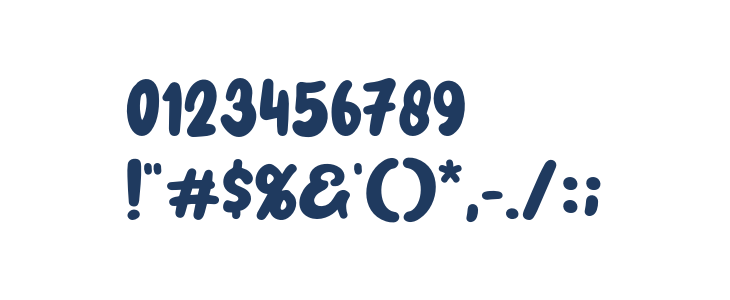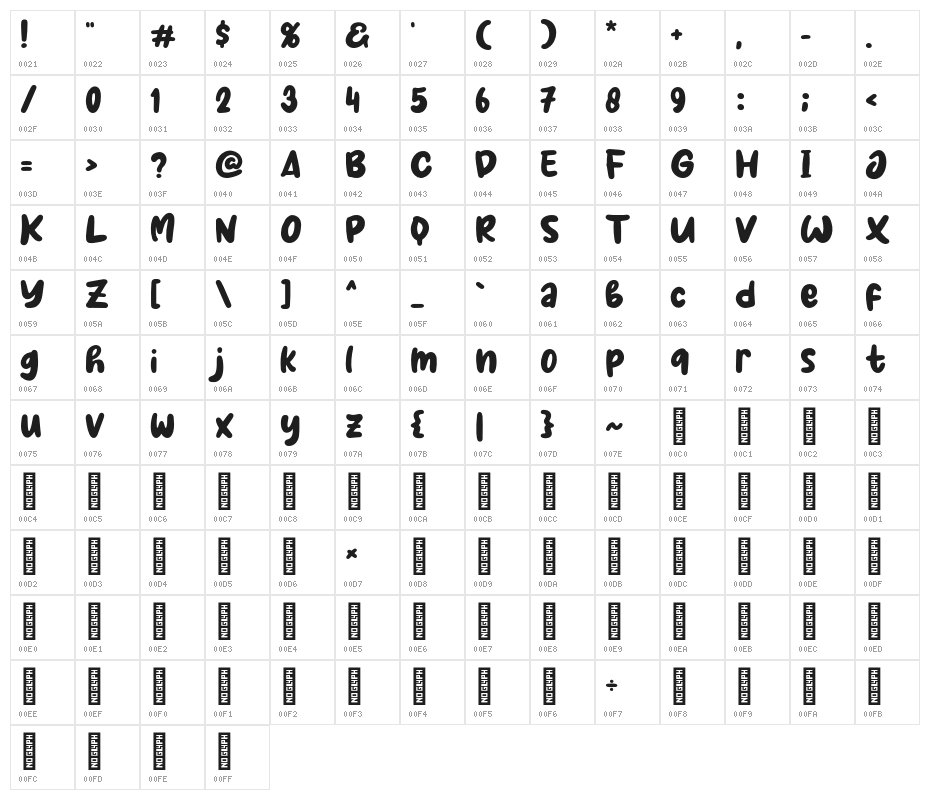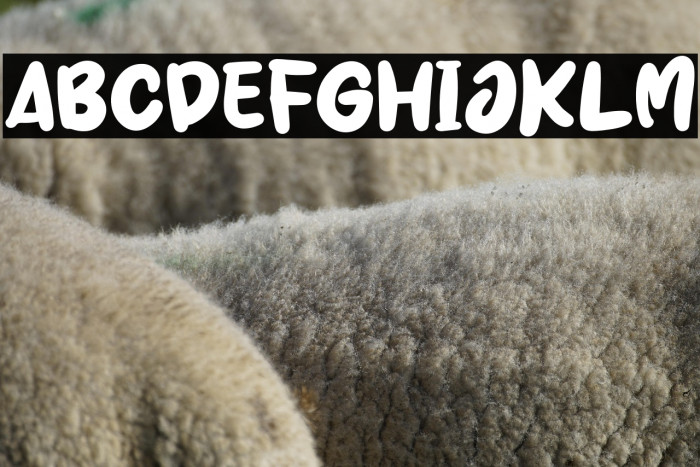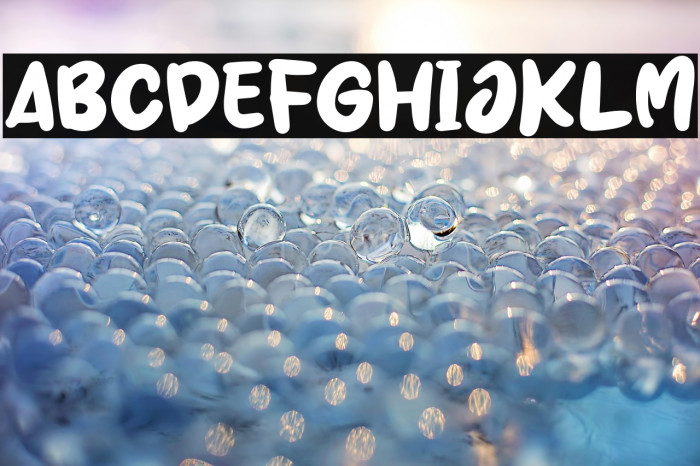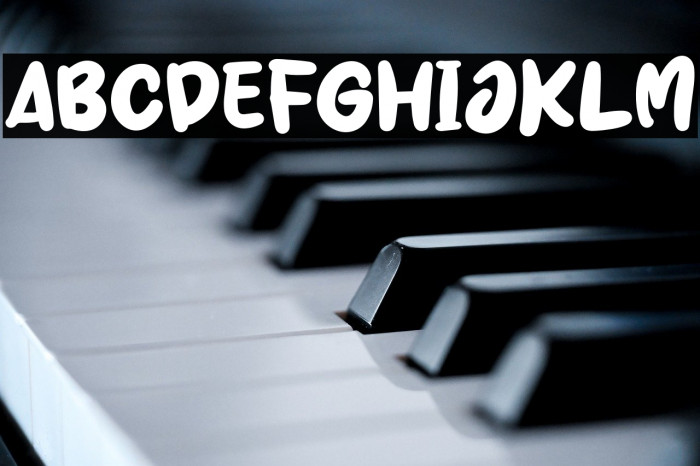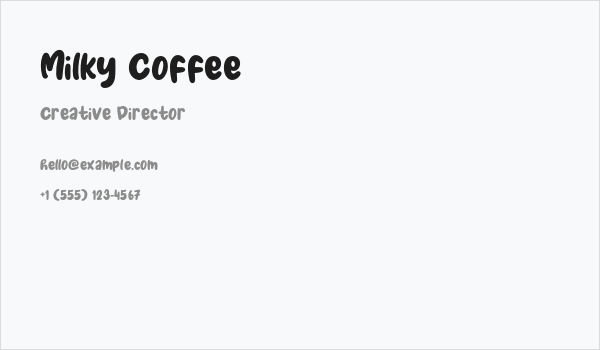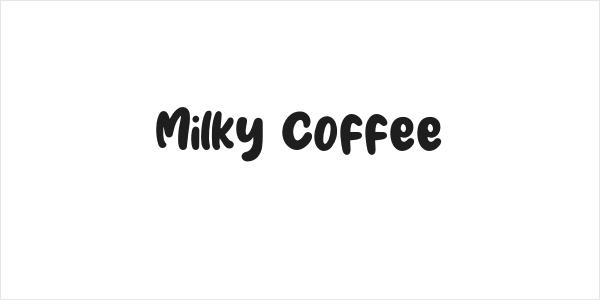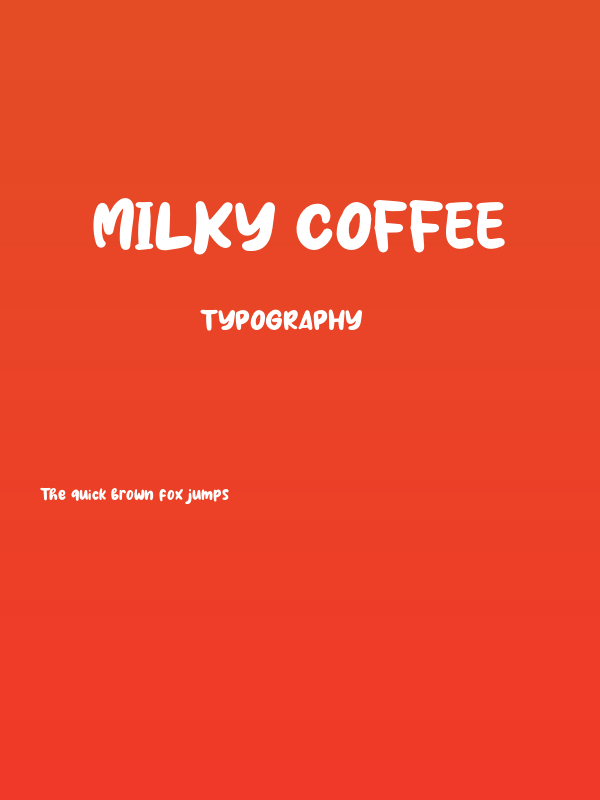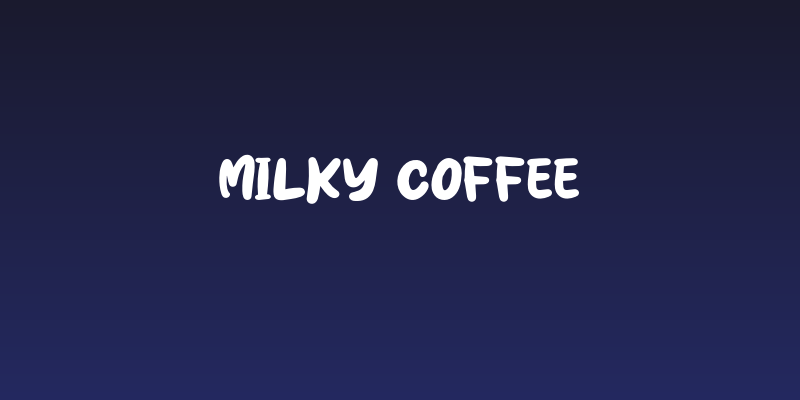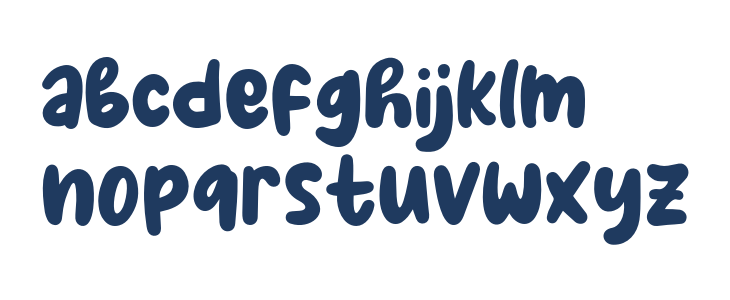
Milky Coffee Font
Milky Coffee Description
This playful and bold font features rounded, bubbly characters that exude a sense of fun and approachability. The letters are thick and have a slightly uneven baseline, giving them a hand-drawn, whimsical feel. The font maintains a consistent weight throughout, with smooth curves and a friendly appearance. It is highly legible, making it suitable for various creative projects. The numbers and special characters are designed to match the playful style of the alphabet, ensuring a cohesive look across all text elements.
| Proposed Projects | Ideal for children's books, playful branding, greeting cards, and social media graphics. |